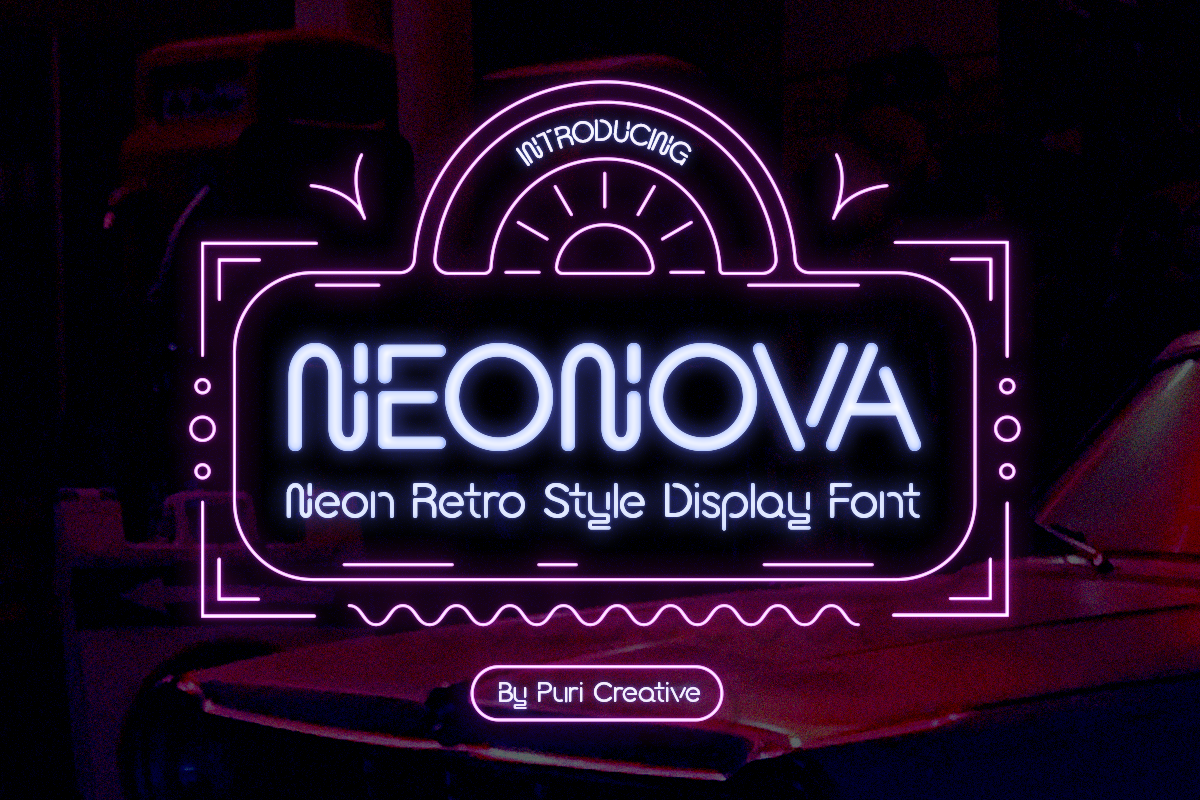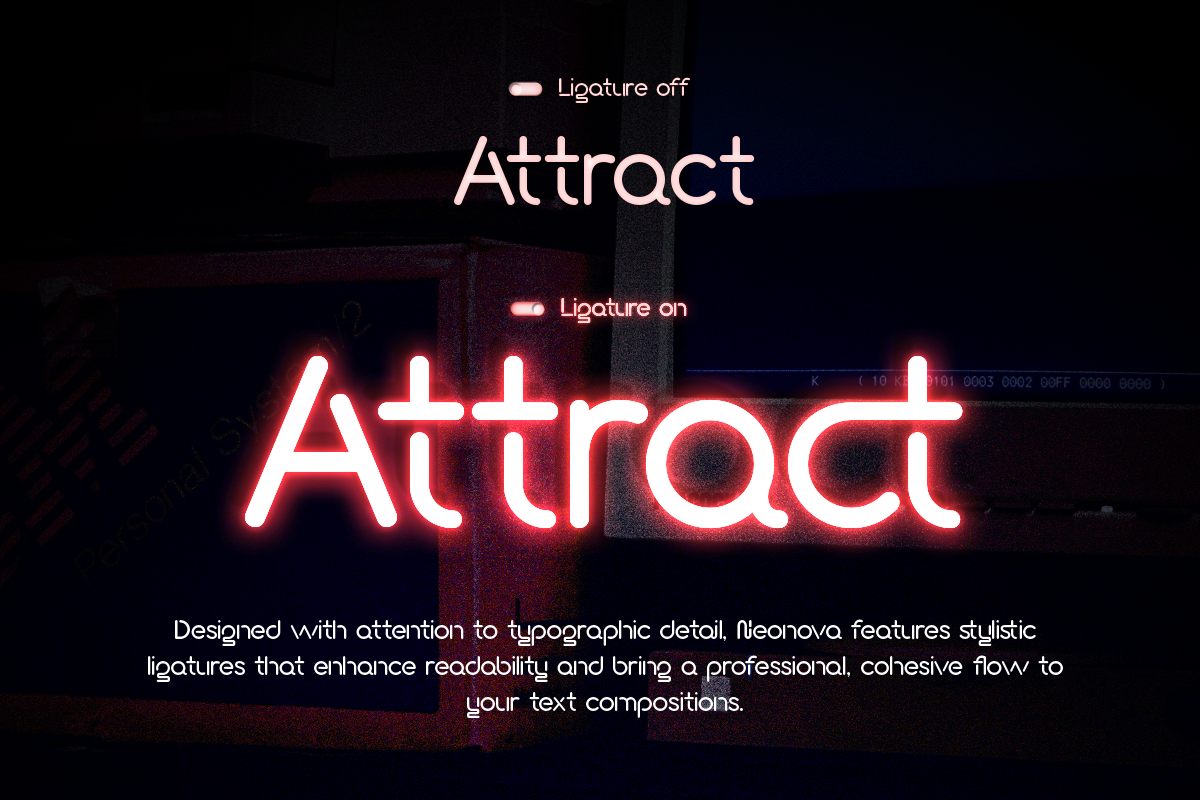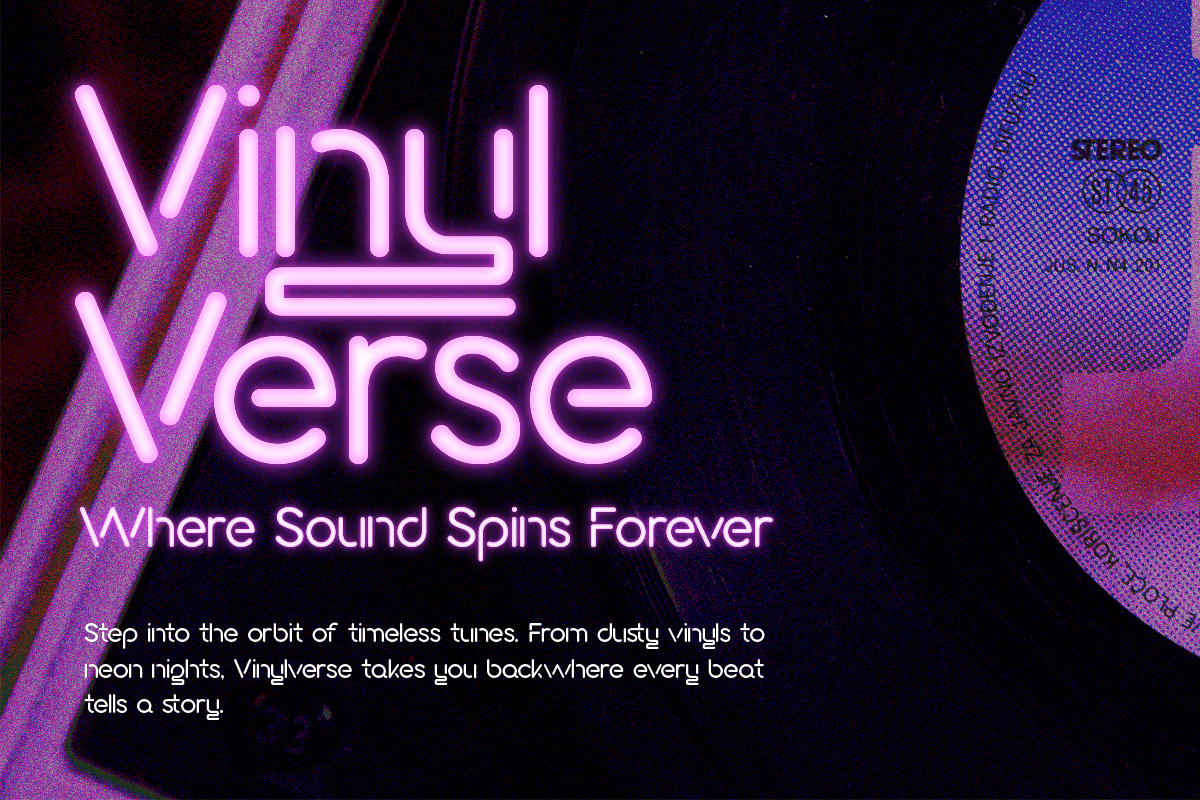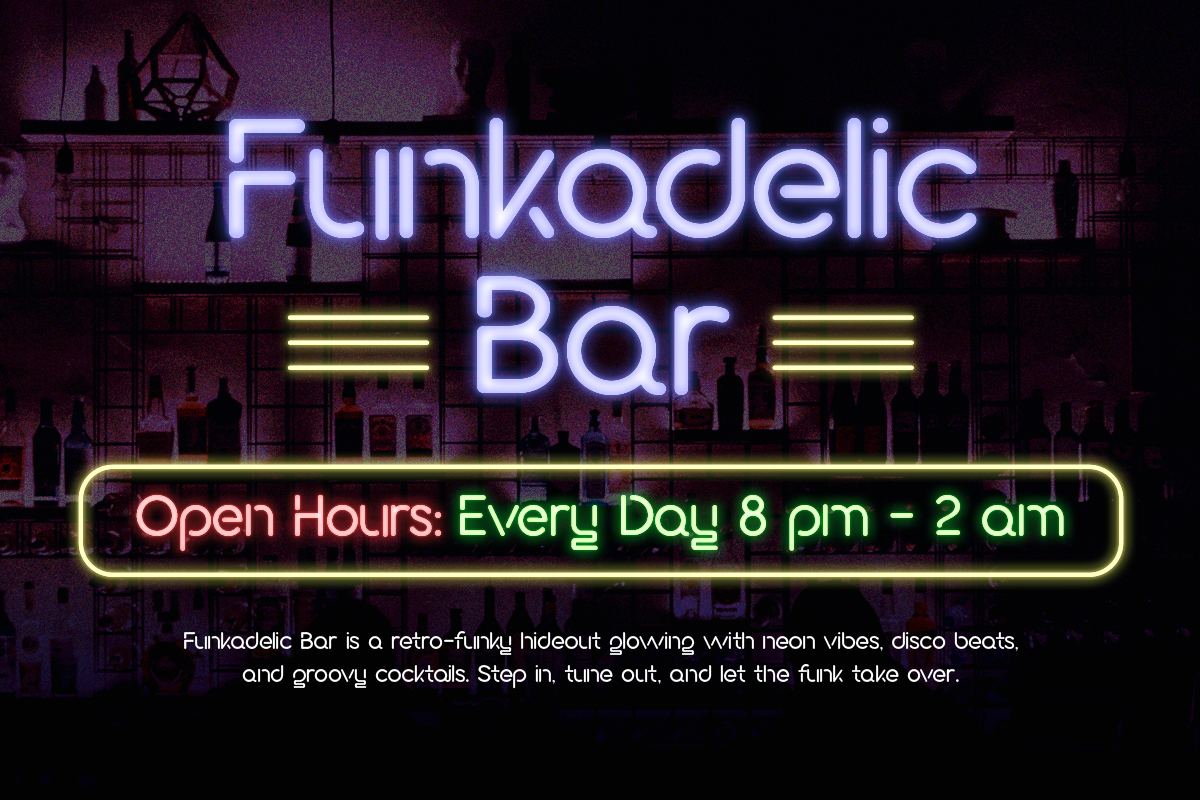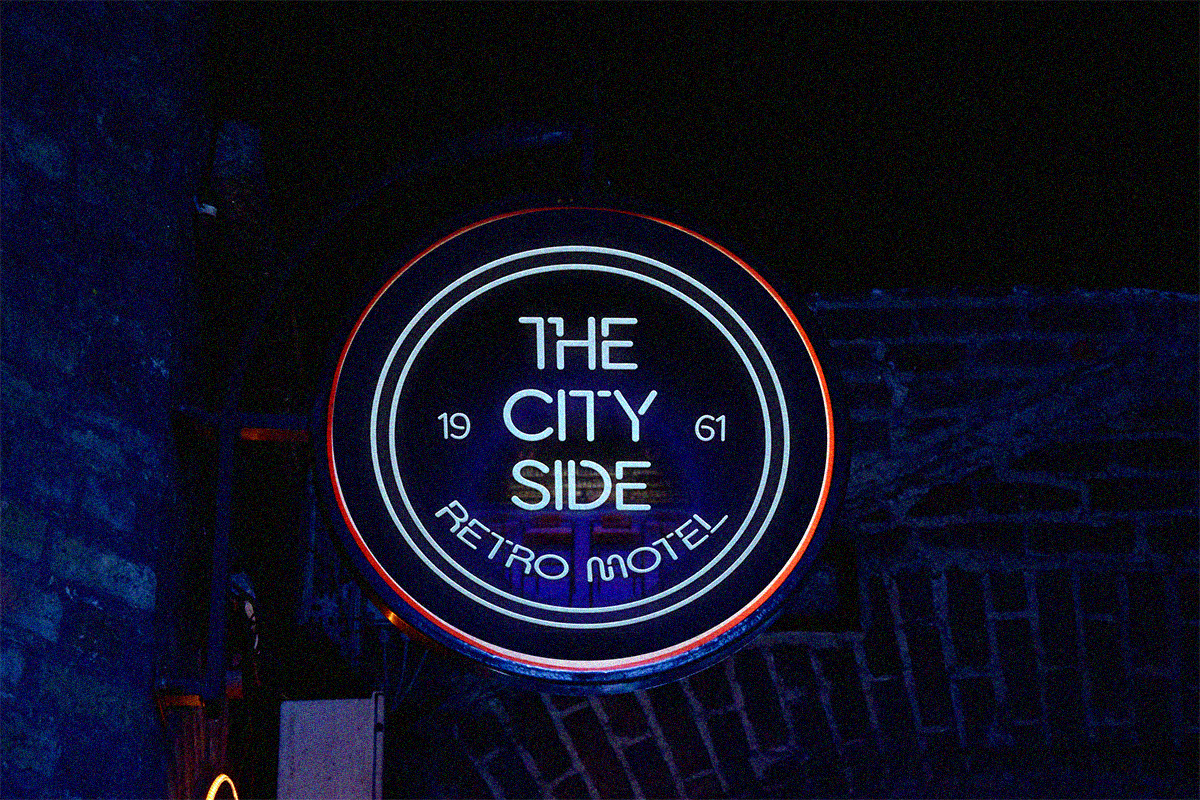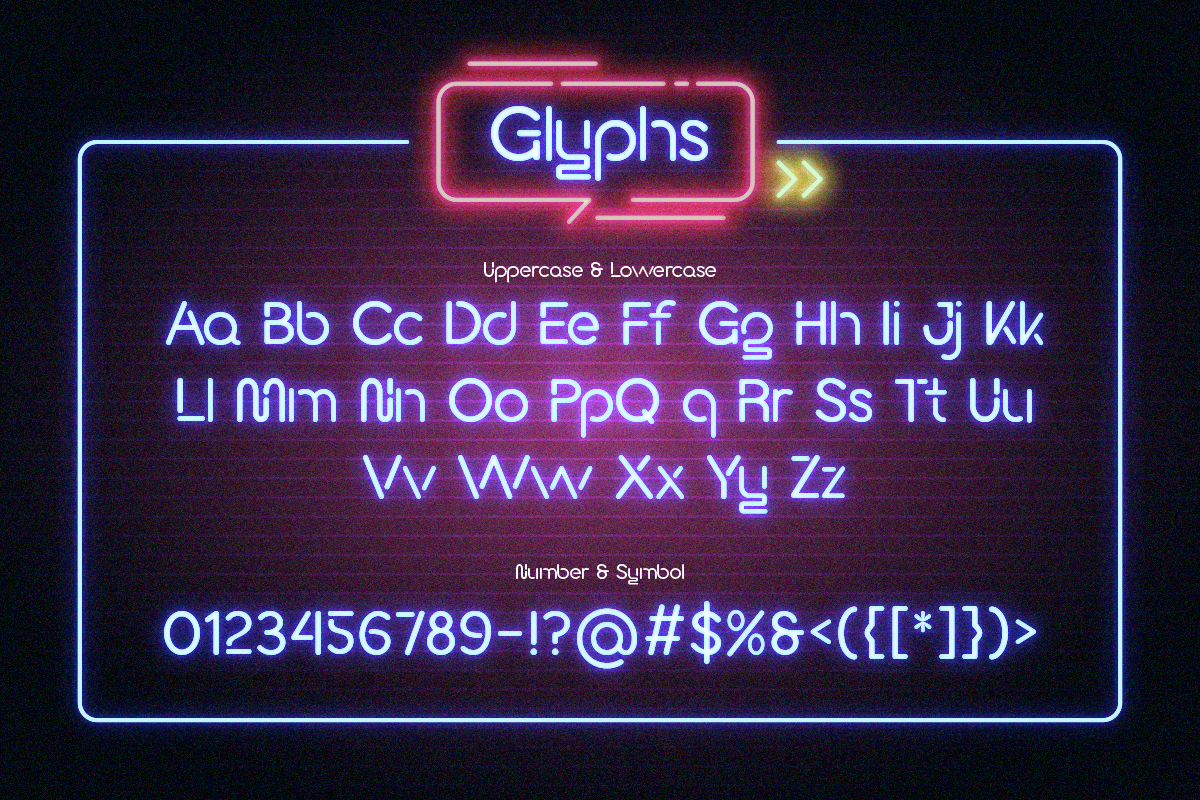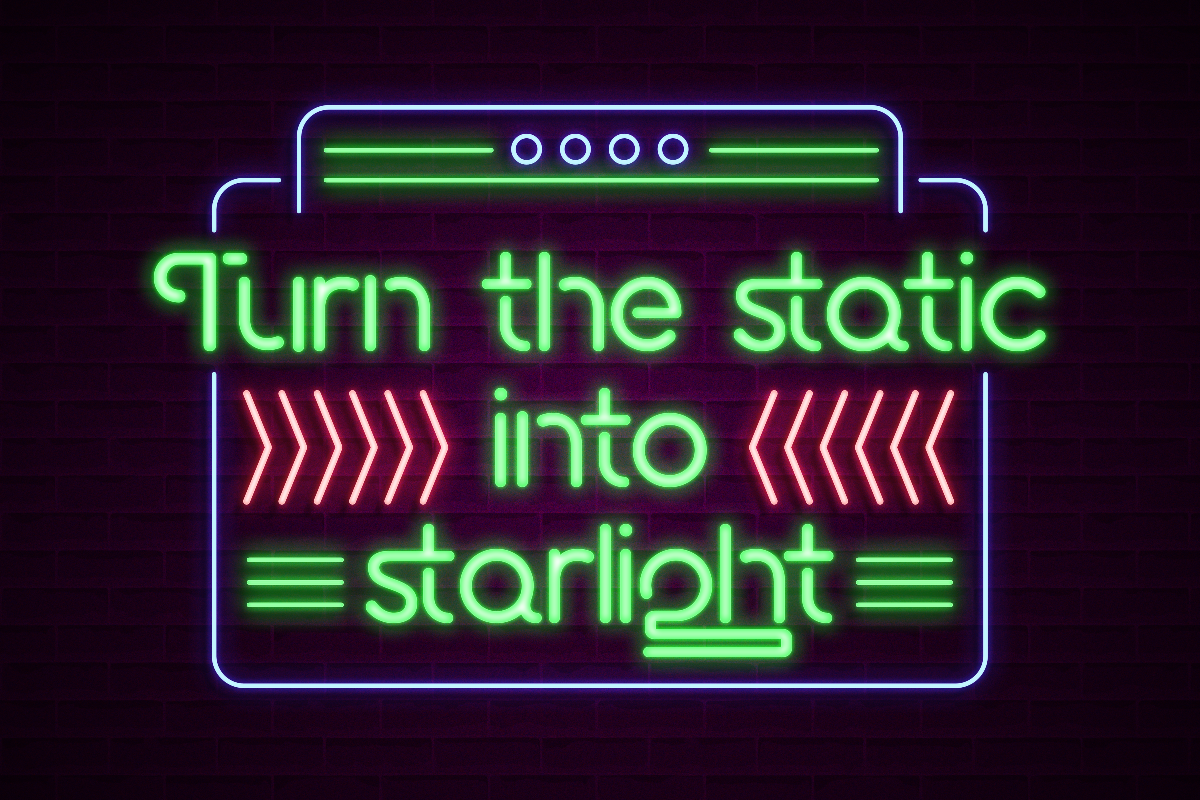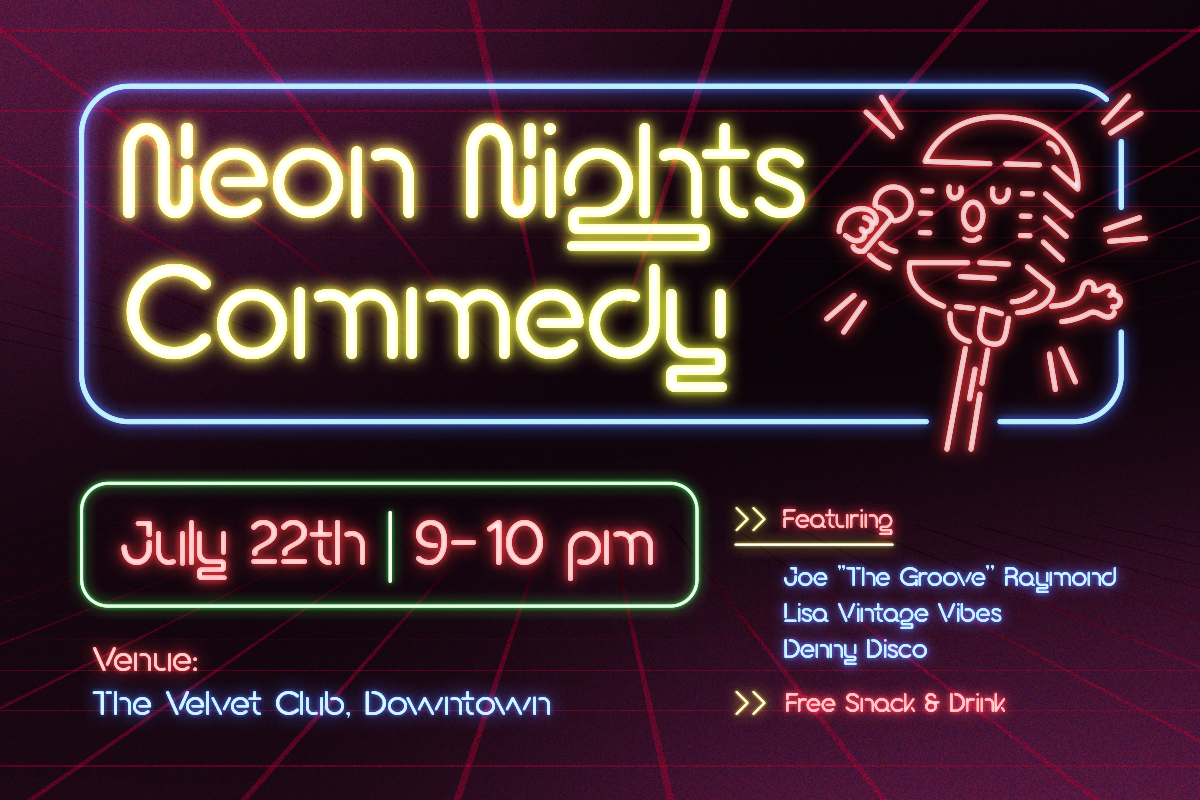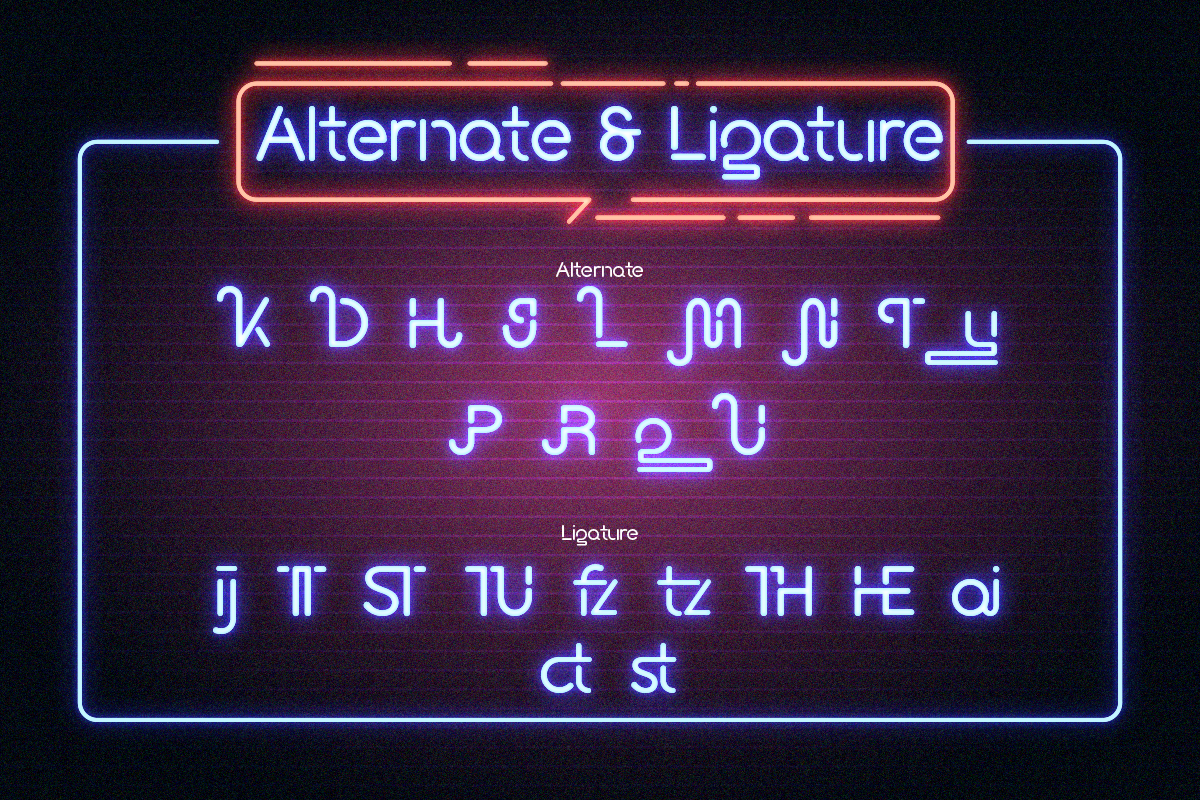
Neonova - Neon Retro Style Font
Introducing NEONOVA — Retro Neon Font - A Retro Neon Font with 80s Vibes
Step into the electric glow of the past with NEONOVA, a bold and vibrant retro neon font that channels the spirit of the 80s. Inspired by vintage neon signage, this typeface captures the dazzling nightlife of classic city streets, arcades, diners, and synthwave dreams. With sleek lines and luminous styling, NEONOVA brings nostalgic energy and futuristic flair into one unforgettable type design.
Perfect for posters, logos, music covers, event promos, t-shirts, digital art, and branding, NEONOVA is built to shine. Whether you're designing for a club flyer or reviving the aesthetics of an old-school VHS cover, this font lights up your ideas with a brilliant retro glow.
From bold headlines to immersive atmospheres, NEONOVA stands out with its stylish readability and authentic neon feel — just like a real sign flickering in the heart of a neon-soaked boulevard.
Illuminate your designs. Embrace the nostalgia. Bring the 80s back to life — with NEONOVA.